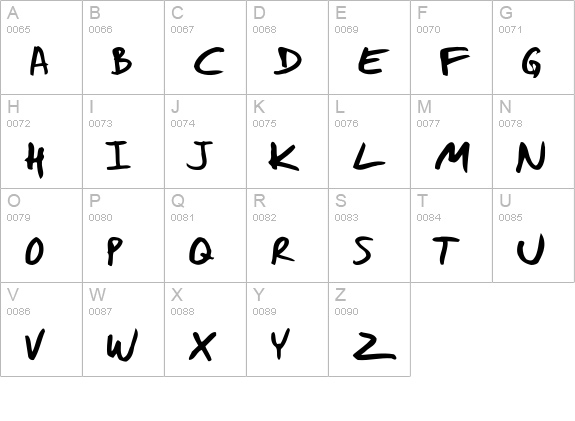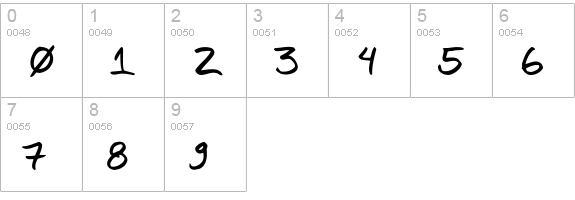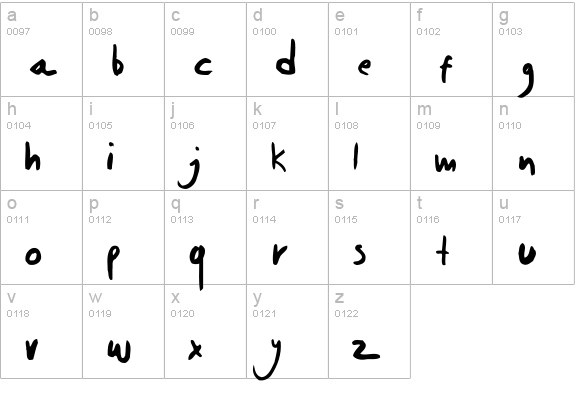
Daniel Werneck's Handwriting font is a true gem for typography enthusiasts and design aficionados alike. This font captures the essence of elegant and fluid handwriting, bringing a touch of personal charm to your projects. Each letter is meticulously crafted with a natural flow of strokes and curves, allowing for a seamless and authentic handwritten feel. With its versatility, Daniel Werneck's Handwriting font is perfect for a wide range of design applications. Whether you are creating invitations, greeting cards, logos, or even adding a personal touch to your digital presentations, this font will instantly elevate your designs to a whole new level. One of the best features of Daniel Werneck's Handwriting font is that it is completely free. Yes, you read that right! This font is freely available to download at FontsMarket.com. Now, you can have access to this beautiful and unique handwriting font without breaking the bank. Don't miss out on the opportunity to enhance your creative projects with the timeless elegance of Daniel Werneck's Handwriting font. Download it today from FontsMarket.com and let your imagination run wild. Whether you are a professional designer or a hobbyist, this font will surely become a valuable addition to your font library. So, why wait? Start creating stunning designs with this free and captivating handwriting font now!